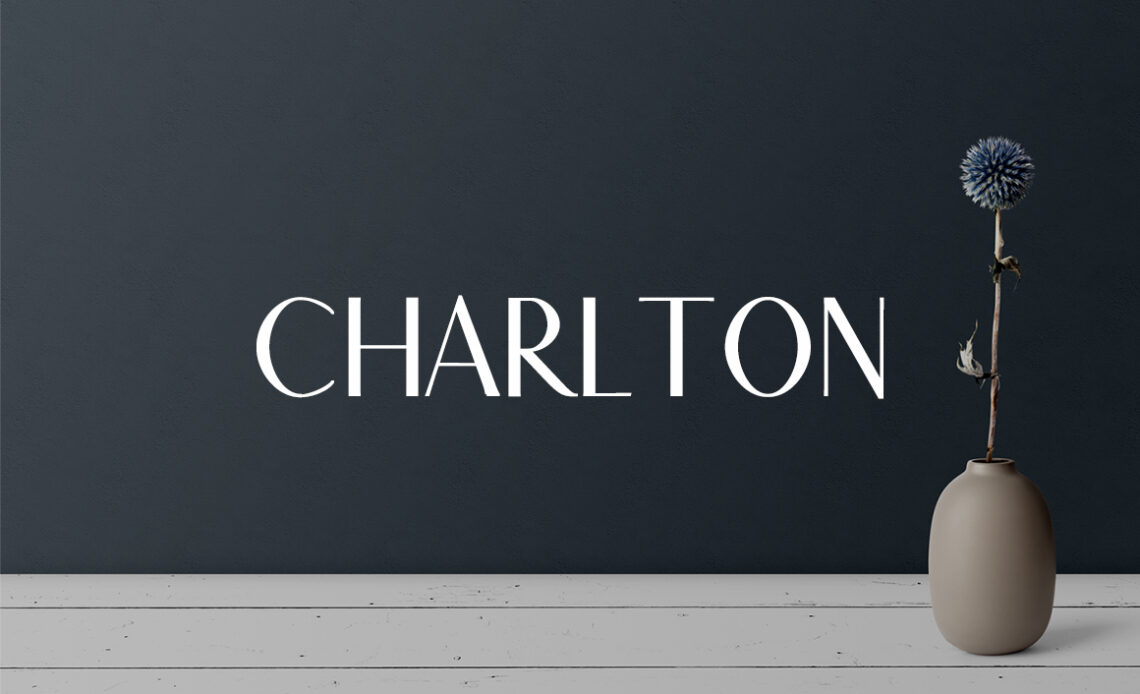
Get ready to unleash your creativity with the Charlton 7 Font Family Pack, an exquisite collection of sans serif fonts designed to turn your digital dreams into reality. Immerse yourself in the world of typography with these stunning fonts, crafted with meticulous attention to detail and an unwavering commitment to quality.
As a designer, you understand the power of fonts in conveying emotions and messages. With the Charlton 7 Font Family Pack, you'll have a versatile tool at your disposal to create designs that resonate with your audience. From sleek and modern logos to captivating headlines and elegant body text, these fonts will elevate your designs to new heights.
Picture this: your next project demands a font that exudes both sophistication and playfulness. Look no further than Charlton 7. Its clean lines and distinctive letterforms will add a touch of charm to your designs, captivating your audience's attention and leaving a lasting impression.
But the Charlton 7 Font Family Pack isn't just about aesthetics; it's also incredibly functional. With seven distinct weights ranging from Thin to Black, you'll have the flexibility to adapt your designs to any context or occasion. Whether you're creating a minimalist website, a vibrant poster, or a thought-provoking presentation, these fonts will seamlessly adapt to your vision.
Don't let your creativity be confined by ordinary fonts. Embrace the Charlton 7 Font Family Pack and unlock a world of endless possibilities. Experiment with different weights, combine fonts to create unique combinations, and watch your designs transform before your eyes.
This font family is not just a collection of letters; it's a gateway to a world of creative expression. So, dive in, explore the depths of your imagination, and let the Charlton 7 Font Family Pack guide you towards typographic brilliance.